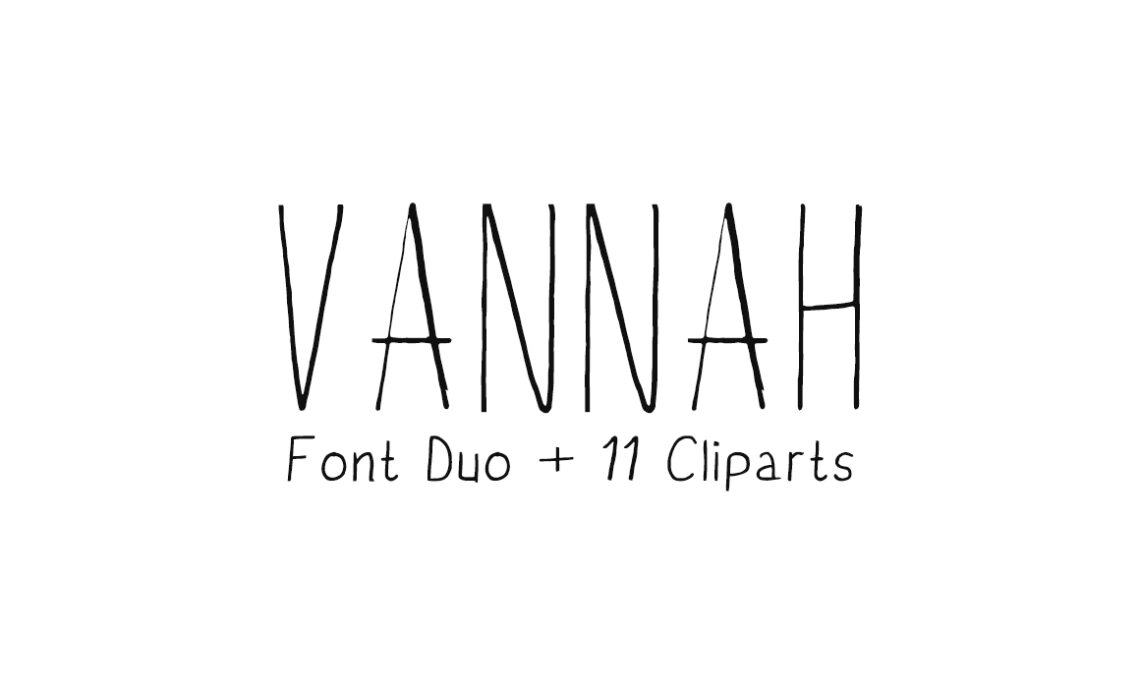
Unleash your creativity with Vannah Font Duo, the ultimate script font duo that captures the essence of charm and approachability. Handcrafted by the skilled artisans at Creative Tacos, Vannah Font Duo brings a touch of warmth and personality to your designs.
Step into a world of expressive typography with Vannah Font Duo. This dual-font duo features upper & lowercase characters, numerals, and a comprehensive range of punctuation, providing endless possibilities for your creative projects. Indulge in the handmade quality that gives Vannah Font Duo its unique and captivating design scape, sure to make your designs stand out.
Whether you're crafting heartfelt invitations, enchanting branding materials, or creating captivating social media posts, Vannah Font Duo is your perfect companion. Its versatility knows no bounds, allowing you to explore a wide spectrum of design styles. Experience the harmony of handwritten elegance and contemporary charm as Vannah Font Duo elevates your designs to new heights.